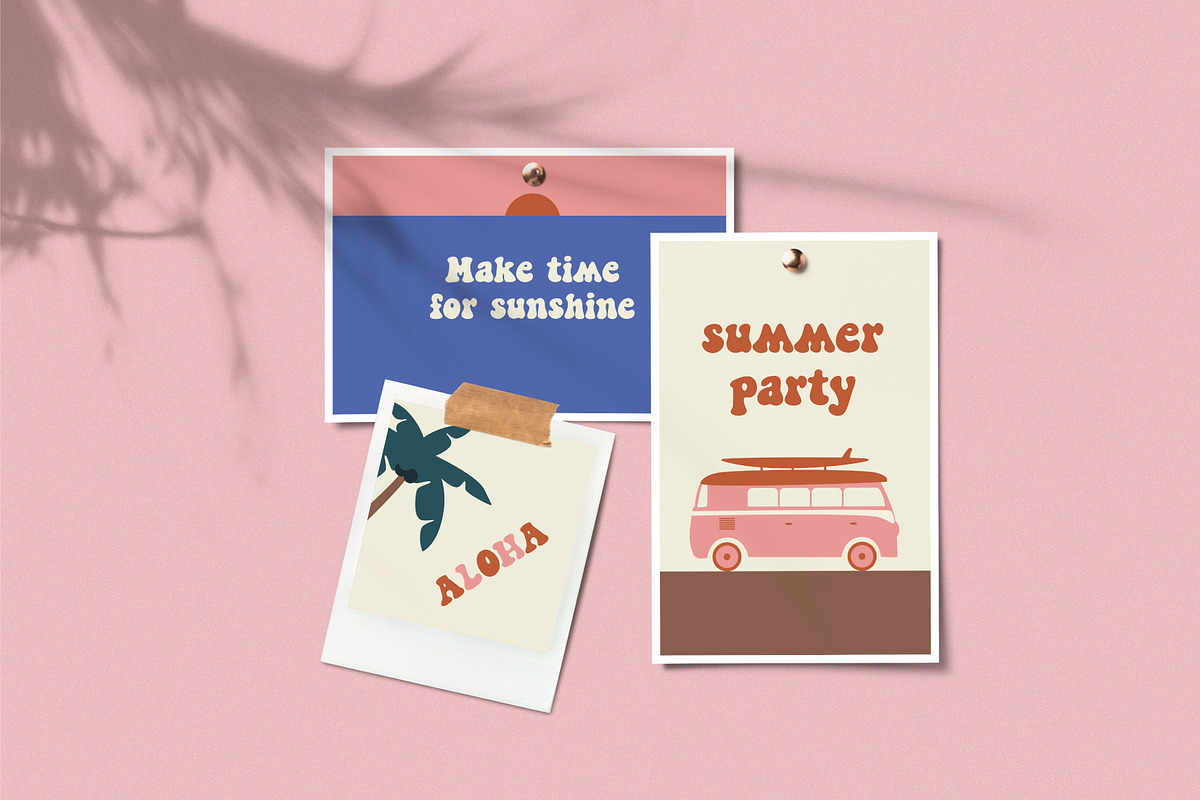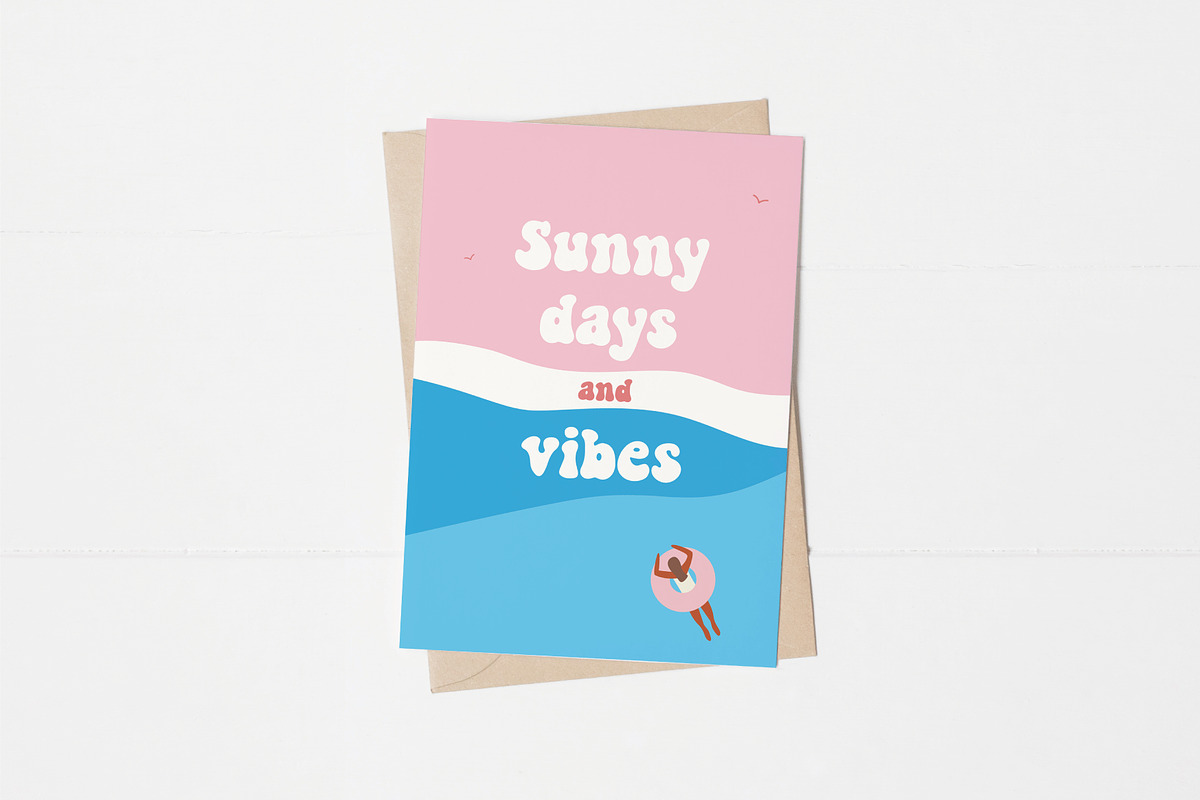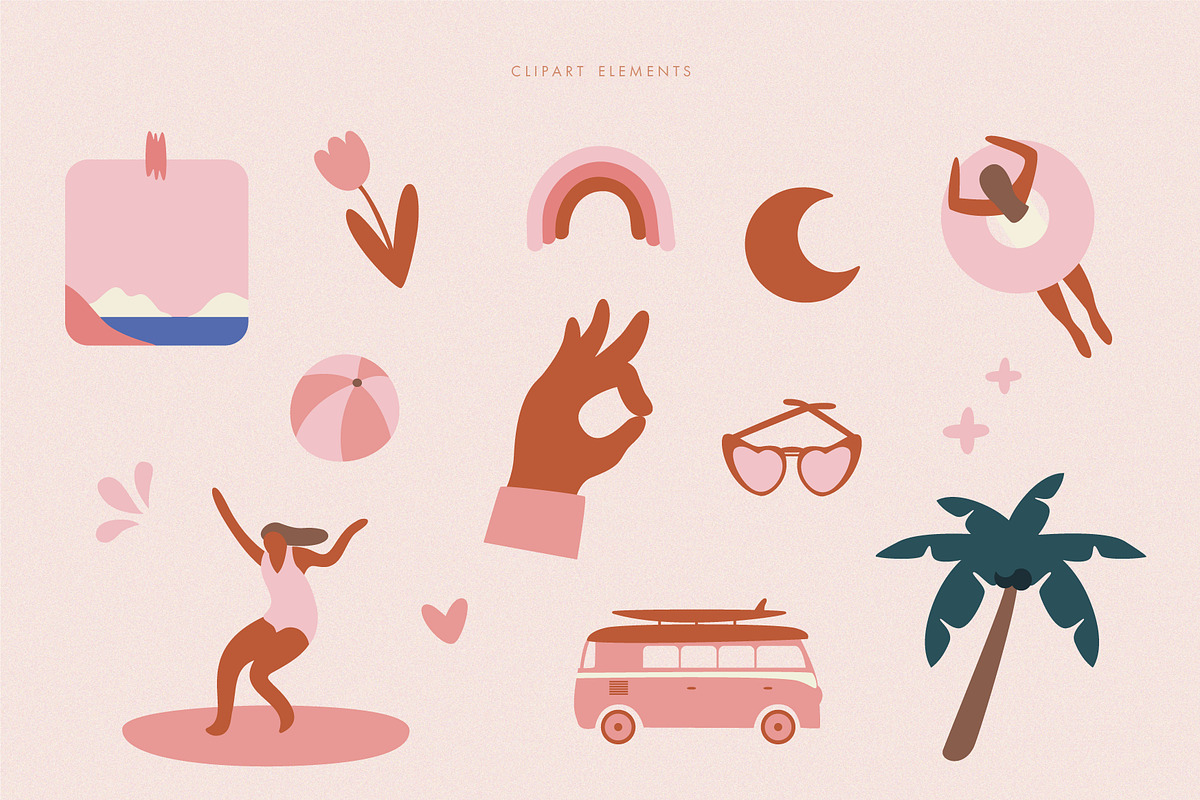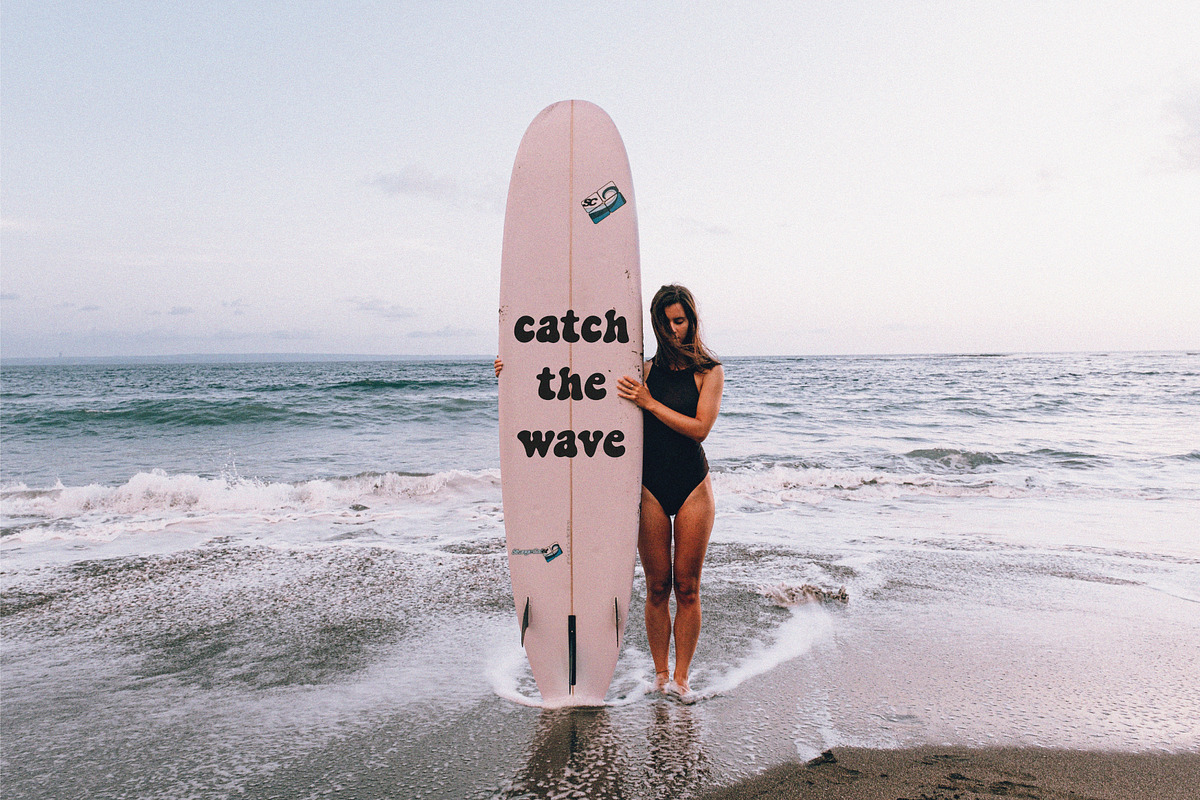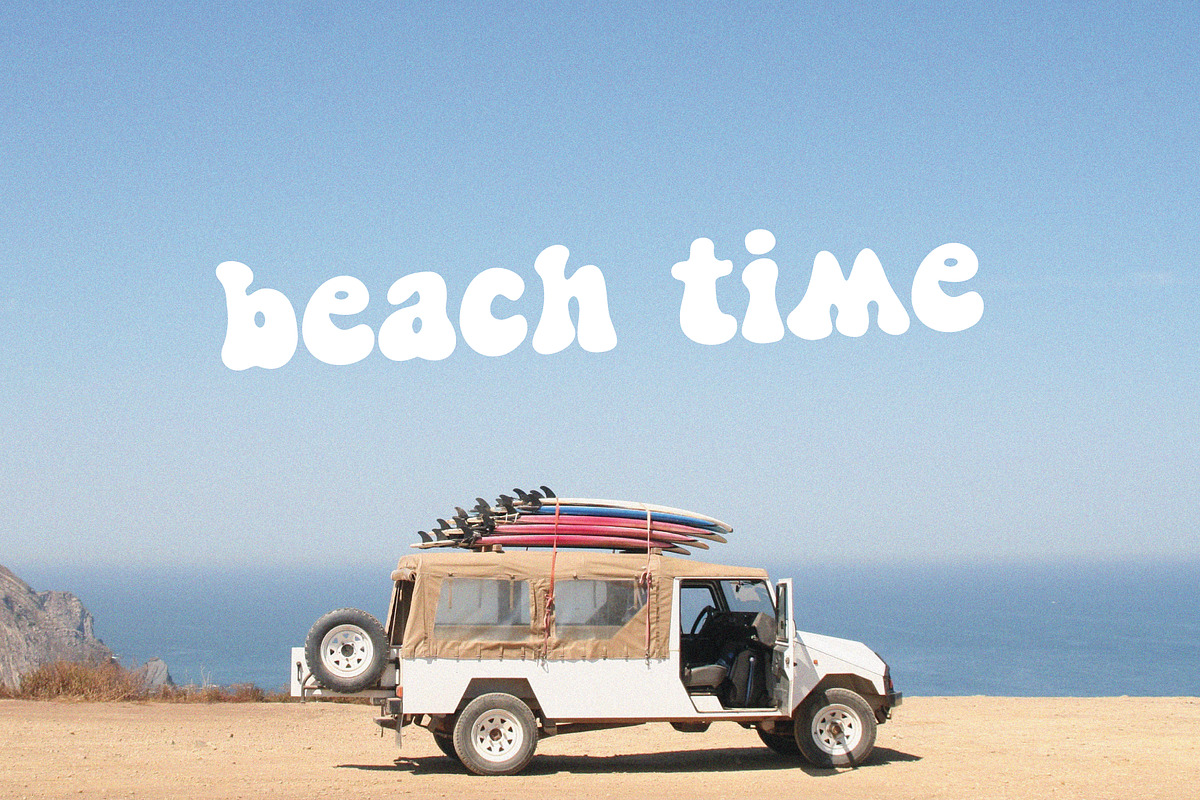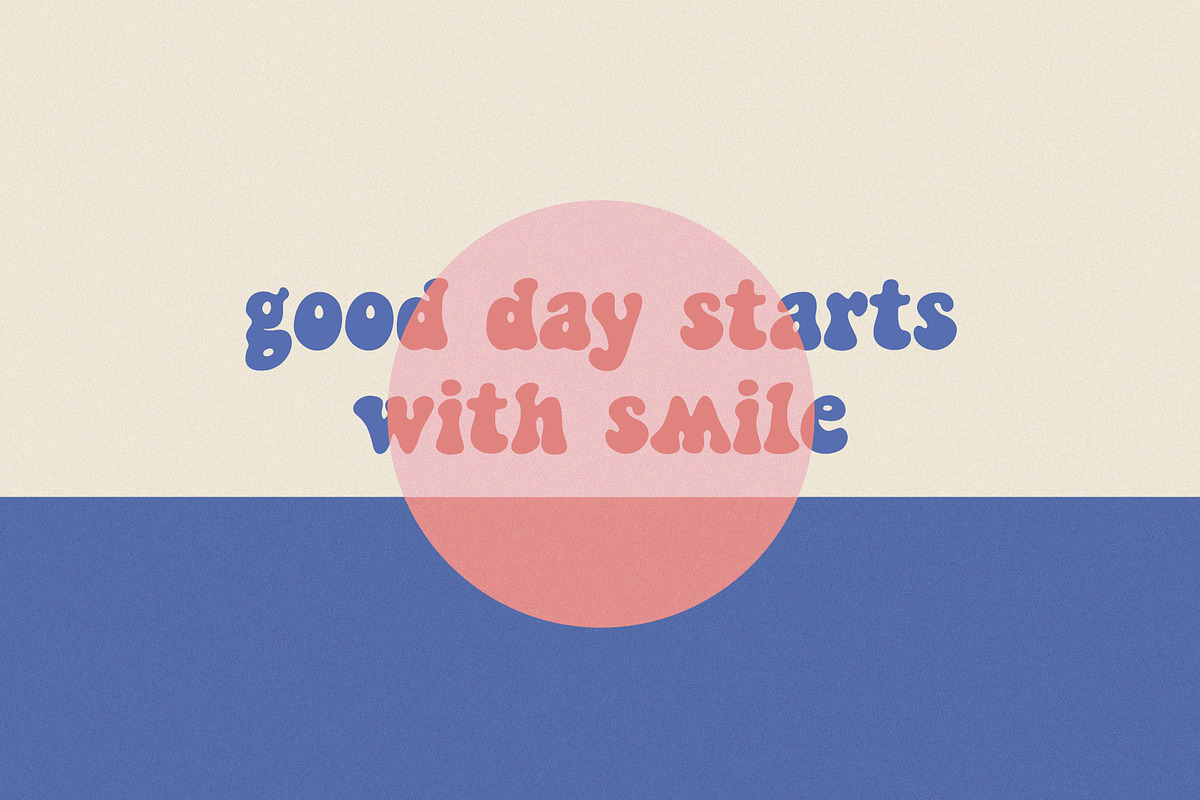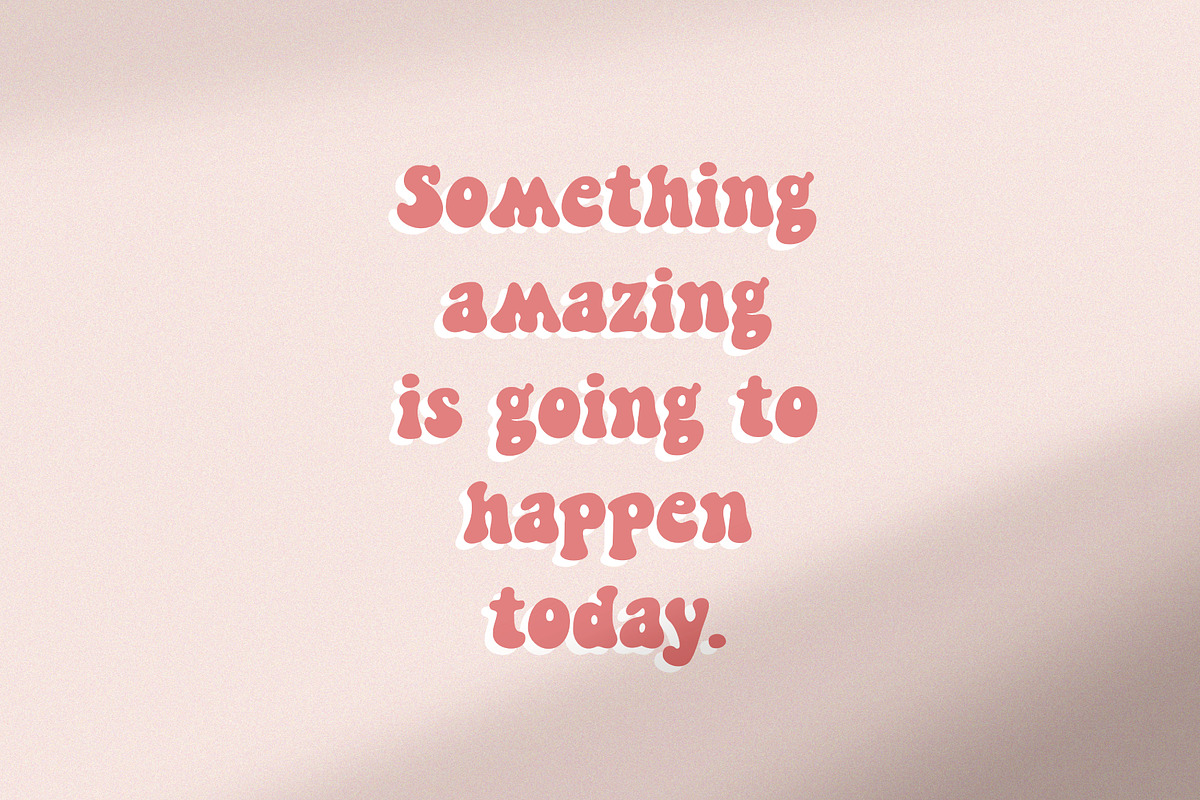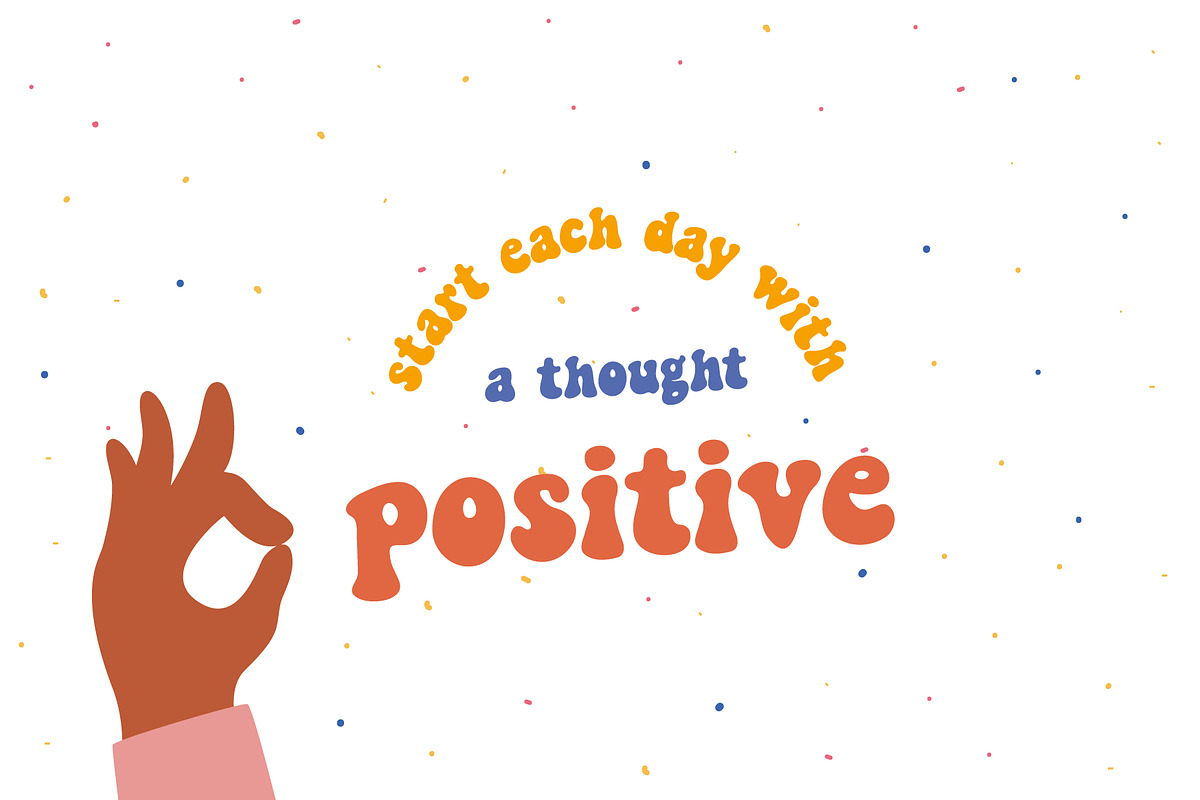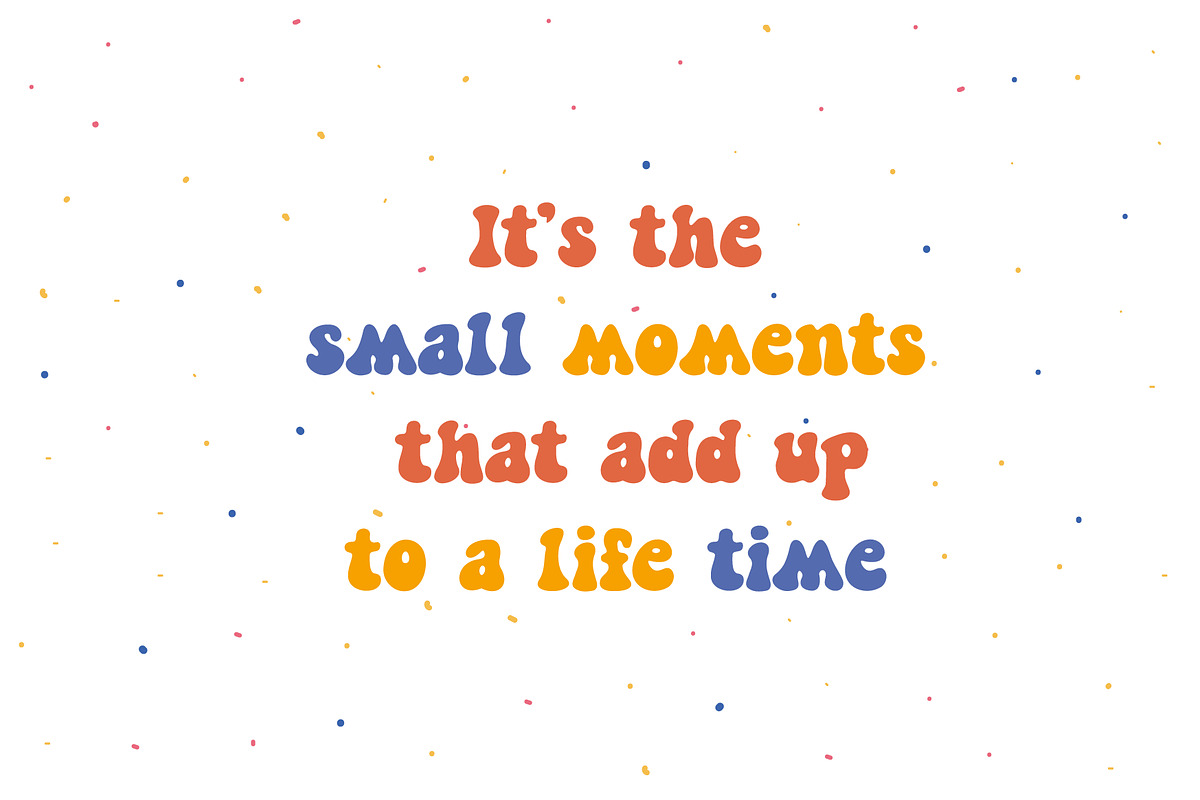
Surfwave | Handwritten font
Surfwave - playful hand-lettered bold typeface. Perfect for quotes, greeting cards, invitations, posters, business cards, presentations and more.